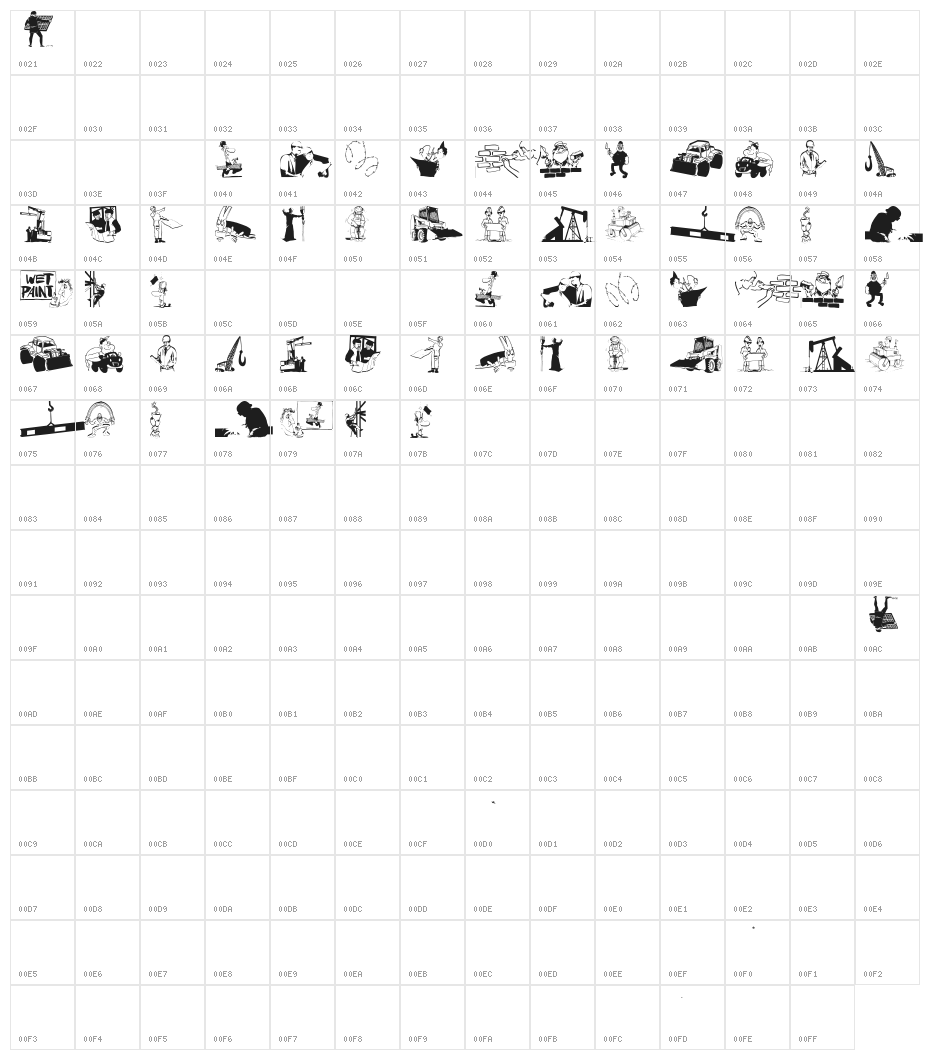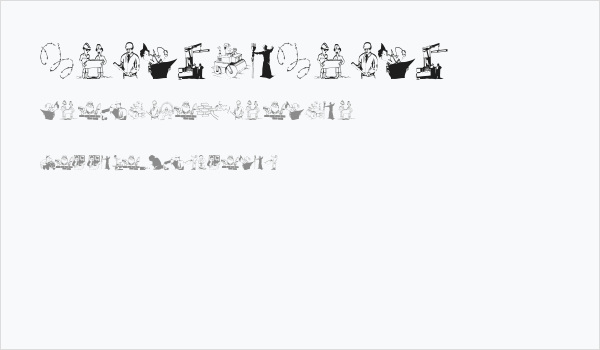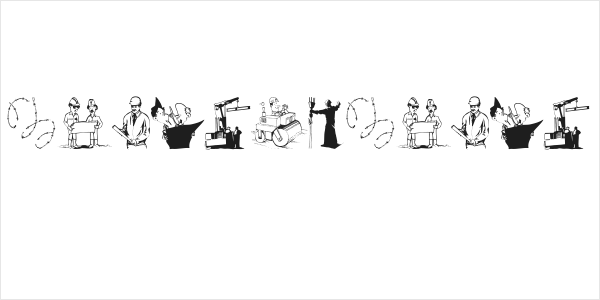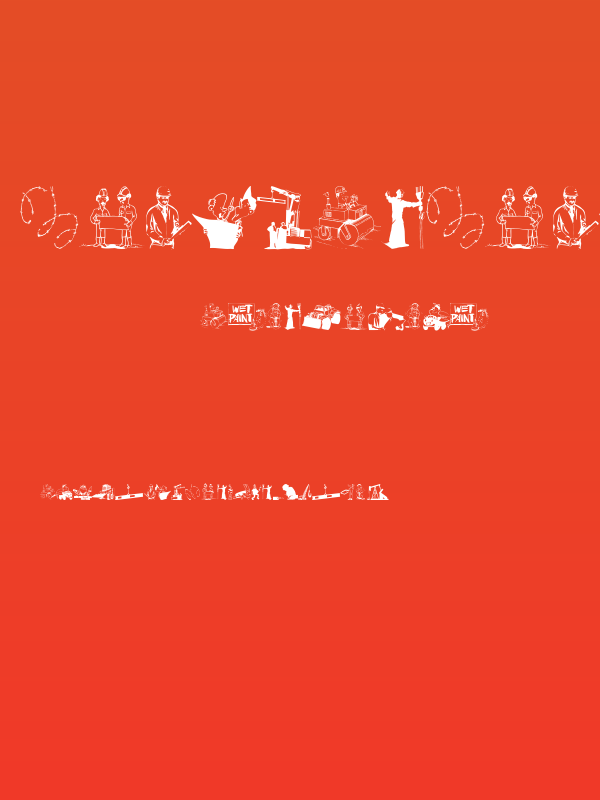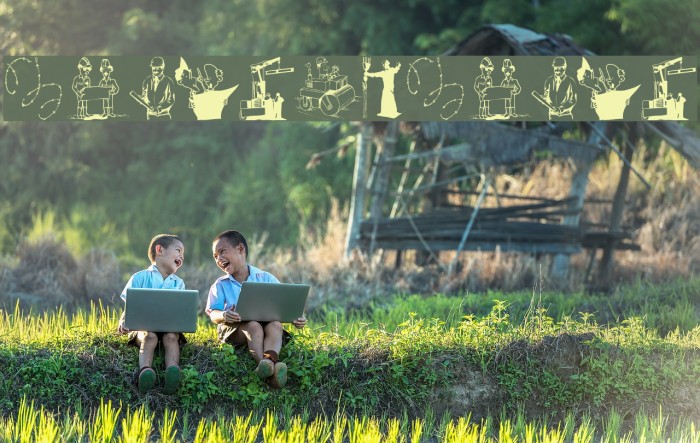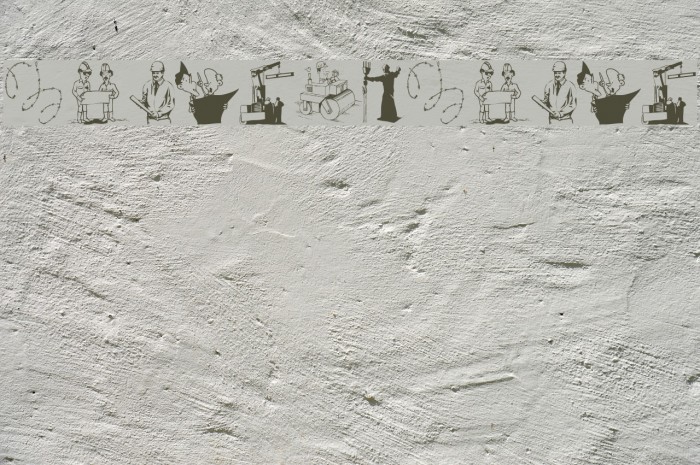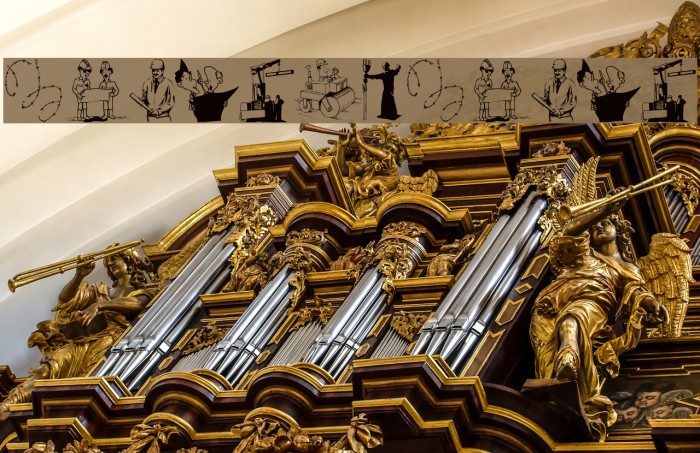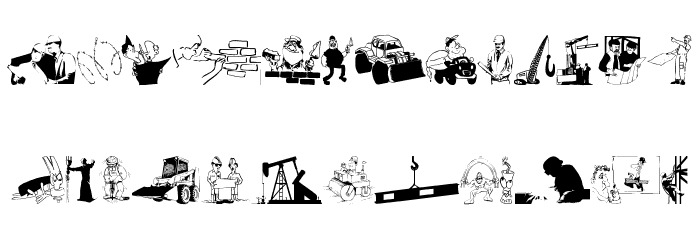
BrickToBrick Font
BrickToBrick Description
This is not a valid font. The image consists of various illustrations depicting construction and building themes, with characters and objects related to construction work. These illustrations are not designed to represent a coherent set of typographic characters or a font.